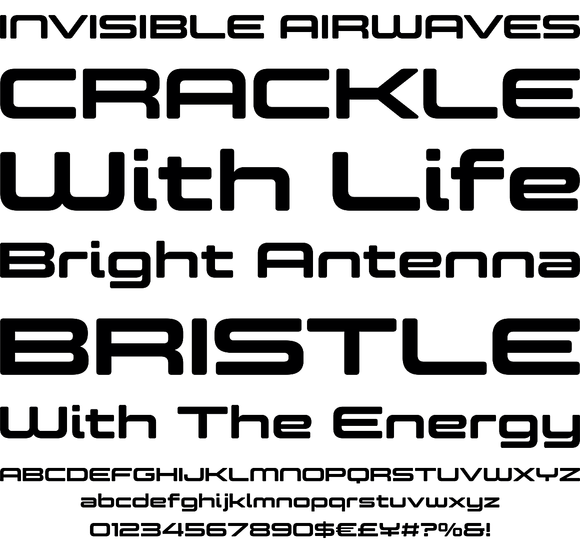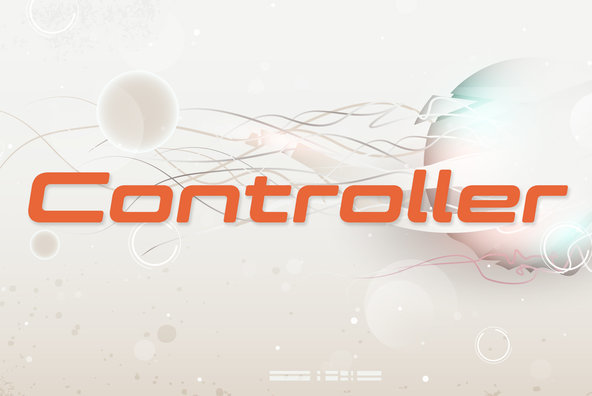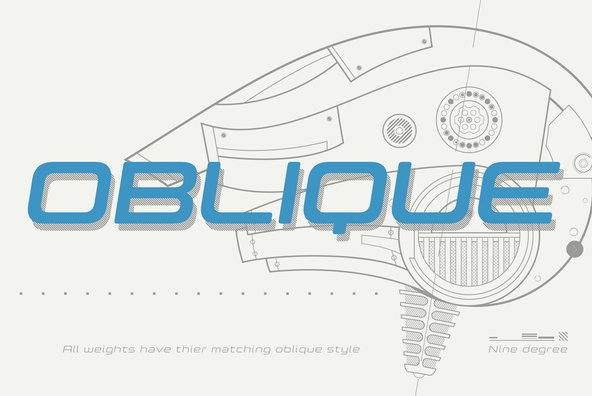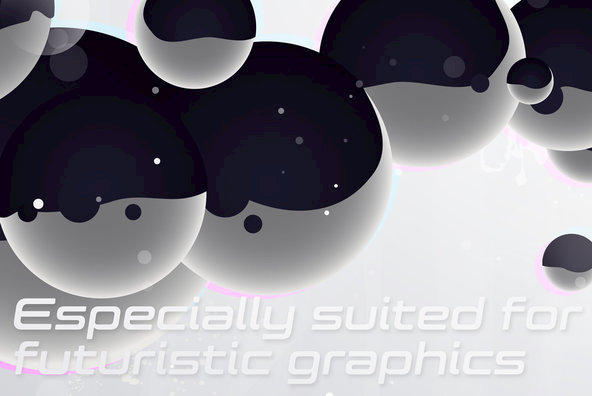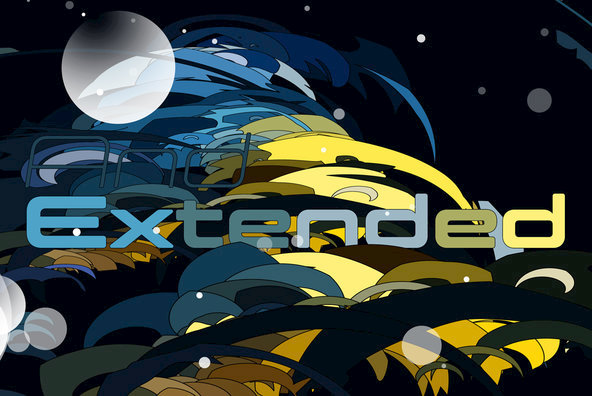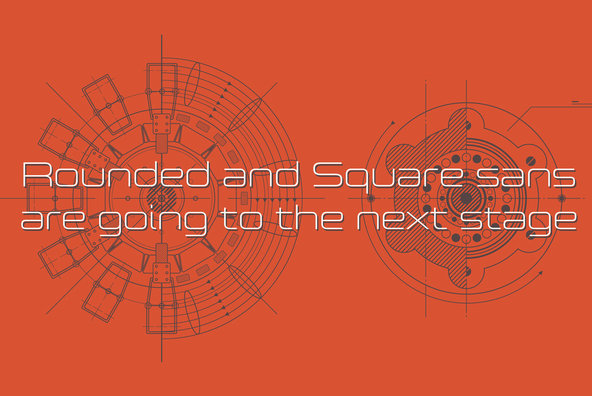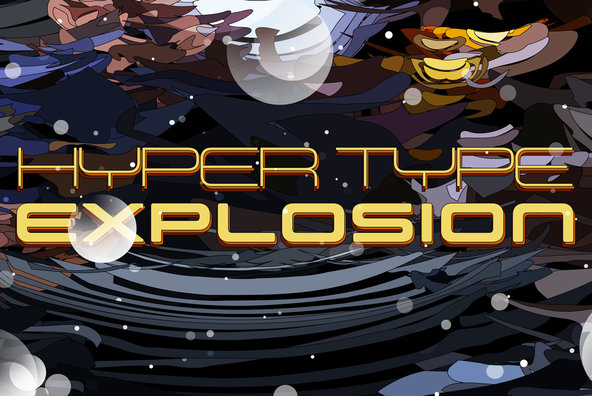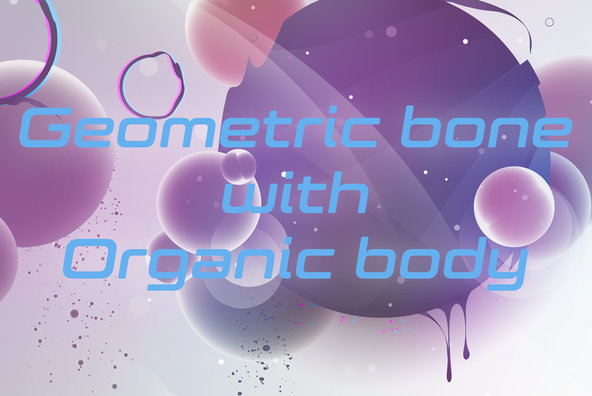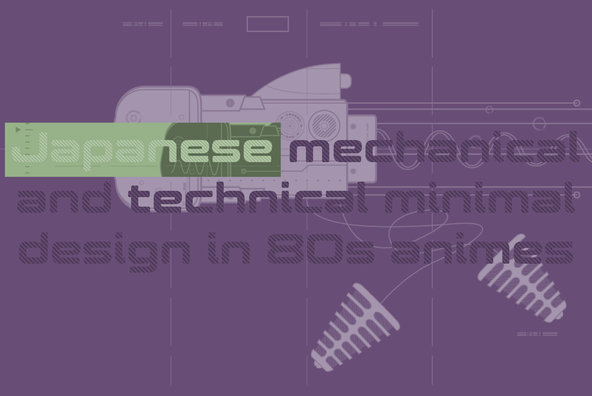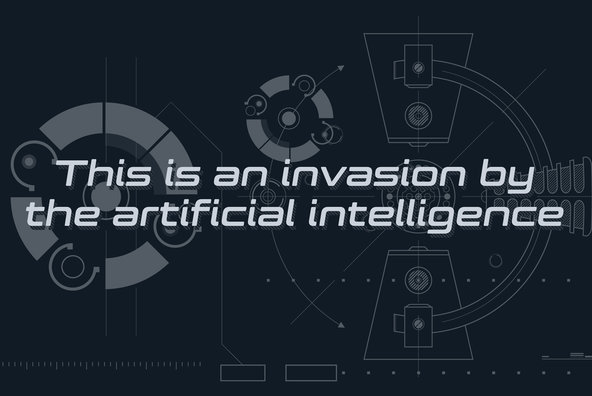
Controller
Controller is a geometric rounded sans serif including 5 weights and corresponding obliques and their extended style are ready. Originally designer was inspired by mixture of techno and organic design in the end of 20th century around the West Coast. The letter forms of this font are designed geometric but also slightly rounded to make a natural warm and organic impression. Uppercase N has its alternative glyph that can be accessed by using OpenType stylistic feature. Controller is a versatile and useful family for a wide range of projects.